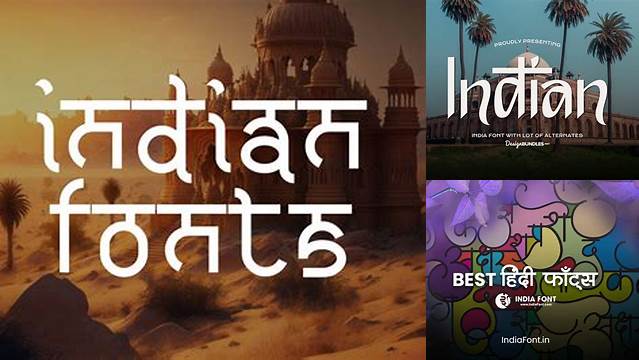
Download Free Fonts For India: Best Typefaces & Where To Find Them
Hey guys! Looking for some awesome free fonts for your next project with an Indian flair? You've come to the right place! Finding the perfect typeface can really elevate your design, whether it's for a website, poster, or anything else. In this article, we'll dive deep into the world of free fonts in India, exploring everything from the best places to find them to tips on choosing the right one. So, let's get started and unleash your creativity!
Free Hindi Fonts
When diving into the realm of free fonts in India, one of the first things many designers and content creators look for are free Hindi fonts. Hindi, being one of the most widely spoken languages in India, demands a rich selection of typefaces that not only convey the meaning of the text but also capture its cultural essence. Finding the right Hindi font can be a game-changer for any project, whether it’s a website, poster, or even a social media campaign. The challenge, however, lies in sifting through the vast online landscape to identify fonts that are both aesthetically pleasing and functionally sound.
For instance, a well-chosen Hindi font can significantly enhance the readability of your content. Think about it – a cluttered or poorly designed typeface can easily deter readers, while a clean and elegant font can draw them in and keep them engaged. This is especially crucial in digital spaces, where attention spans are notoriously short. Moreover, the right font can also communicate a specific tone or mood. A playful, whimsical font might be perfect for a children's book, while a more formal, traditional typeface might be better suited for a government document or a corporate report. Therefore, selecting a Hindi font is not merely about aesthetics; it's about effectively communicating your message.
Furthermore, consider the technical aspects of the font. Is it a web-safe font, meaning it will render correctly across different browsers and devices? Does it include all the characters and ligatures necessary for accurate Hindi typography? These are important questions to ask before committing to a particular font. It might also be worthwhile to test the font in your design software or website to see how it looks in context. Experiment with different sizes, weights, and styles to find the perfect fit for your project.
Free Tamil Fonts
Moving southward, the need for free fonts in India extends to other regional languages, with free Tamil fonts being a crucial category. Tamil, a classical language with a rich literary history, holds immense cultural significance in South India and beyond. The aesthetic nuances of the Tamil script require fonts that are not only legible but also aesthetically pleasing, capturing the elegance and heritage of the language. So, finding the right Tamil font is essential for projects targeting Tamil-speaking audiences.
Choosing a free Tamil font involves a similar process to selecting Hindi fonts, but with its own set of considerations. The unique curves and strokes of the Tamil script demand a typeface that is meticulously crafted to ensure clarity and visual appeal. Imagine trying to read a beautifully written poem in Tamil, but the font is so poorly designed that the letters blur together, and the words become indistinguishable. The emotional impact of the poem would be completely lost. This is why font choice matters so much, especially in a language like Tamil with such a strong literary tradition.
The internet offers a growing collection of free Tamil fonts, but the quality can vary significantly. Some fonts are created by professional type designers, while others are the work of hobbyists or students. While all contributions to the world of typography are valuable, it’s essential to carefully evaluate the fonts you choose. Look for fonts that have been professionally designed and tested, ensuring they meet the highest standards of readability and aesthetic appeal. Websites like Google Fonts and various open-source font repositories are excellent starting points for your search. These platforms often curate high-quality fonts and provide detailed information about their usage and licensing.
When you're browsing through Tamil fonts, consider the specific needs of your project. Are you designing a formal document, a marketing brochure, or a website? The type of project will influence the style of font you need. For instance, a classic, serif Tamil font might be suitable for formal texts, while a modern, sans-serif font might be a better choice for web design. Think about the overall tone and message you want to convey, and choose a font that aligns with that vision. It's also crucial to ensure that the font supports all the necessary characters and ligatures in the Tamil script. Some fonts might be incomplete, lacking certain glyphs or stylistic variations, which can compromise the integrity of your text.
Free Telugu Fonts
Continuing our exploration of free fonts in India, let's turn our attention to Telugu. The Telugu script, known for its rounded forms and flowing curves, is used to write one of the largest spoken languages in India. Finding high-quality free Telugu fonts is essential for anyone creating content in this vibrant language. Whether you're designing a website, crafting marketing materials, or working on a literary project, the right font can make all the difference.